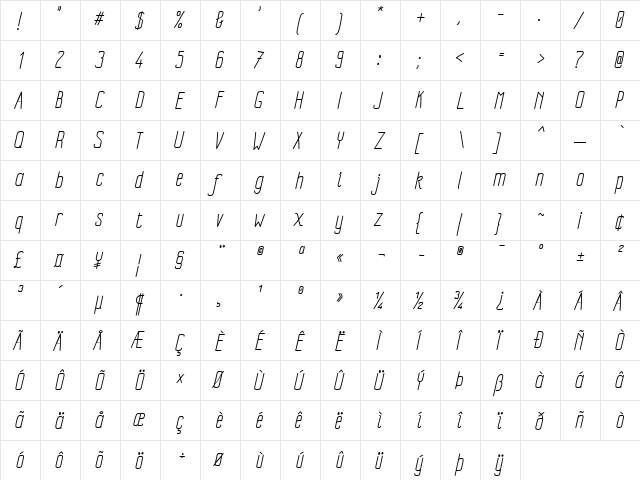
Impreciso free Light Italic
Design Context for Impreciso free Light Typeface
Impreciso free Light takes a measured approach to typography — its balanced proportions and neutral character make it a reliable workhorse for both digital and print work. The dynamic lean of this cut emphasises speed and emphasis in any layout. The delicate stroke weight brings airiness and refinement to layouts.
Pro Tip: Use Impreciso free Light for emphasis, pull quotes, and subheadings where its slanted energy can add rhythm to the layout.